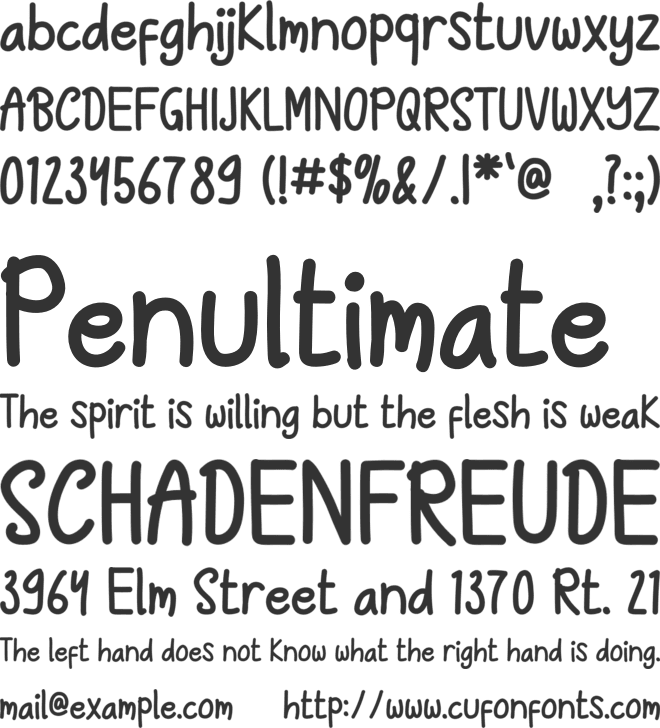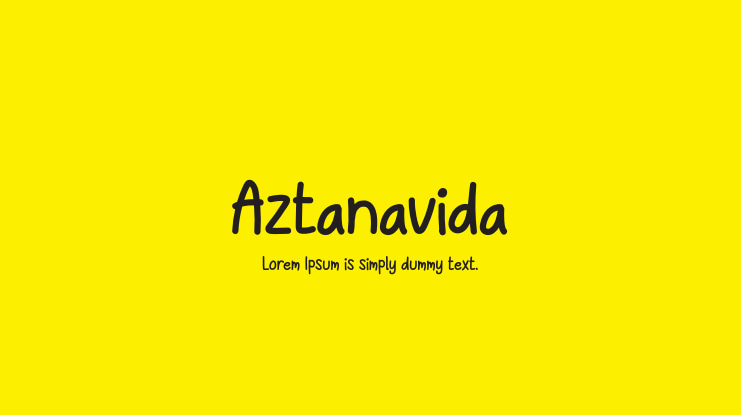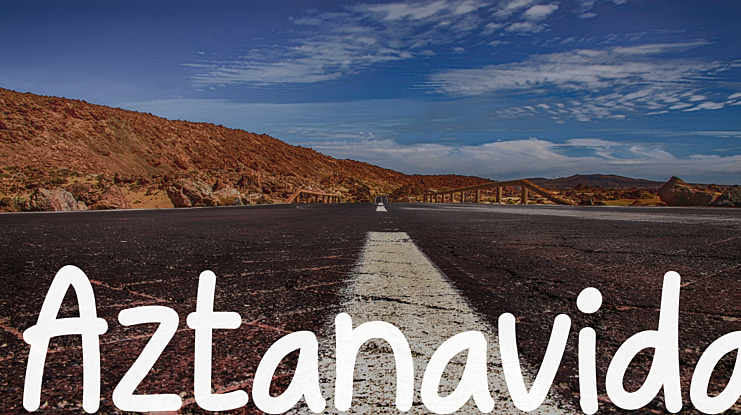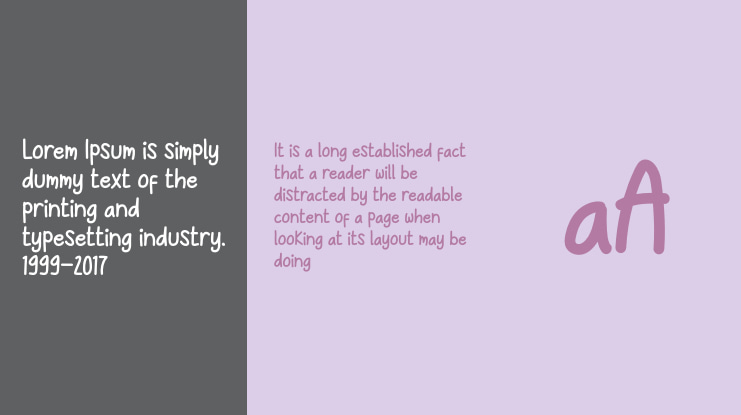
Aztanavida Font
Aztanavida Font is a Fun Display Font. This font is is perfect for branding projects, logo, wedding designs, social media posts, advertisements, product packaging, product designs, label, photography, watermark, invitation, stationery and any projects that need handwriting & Cute taste.